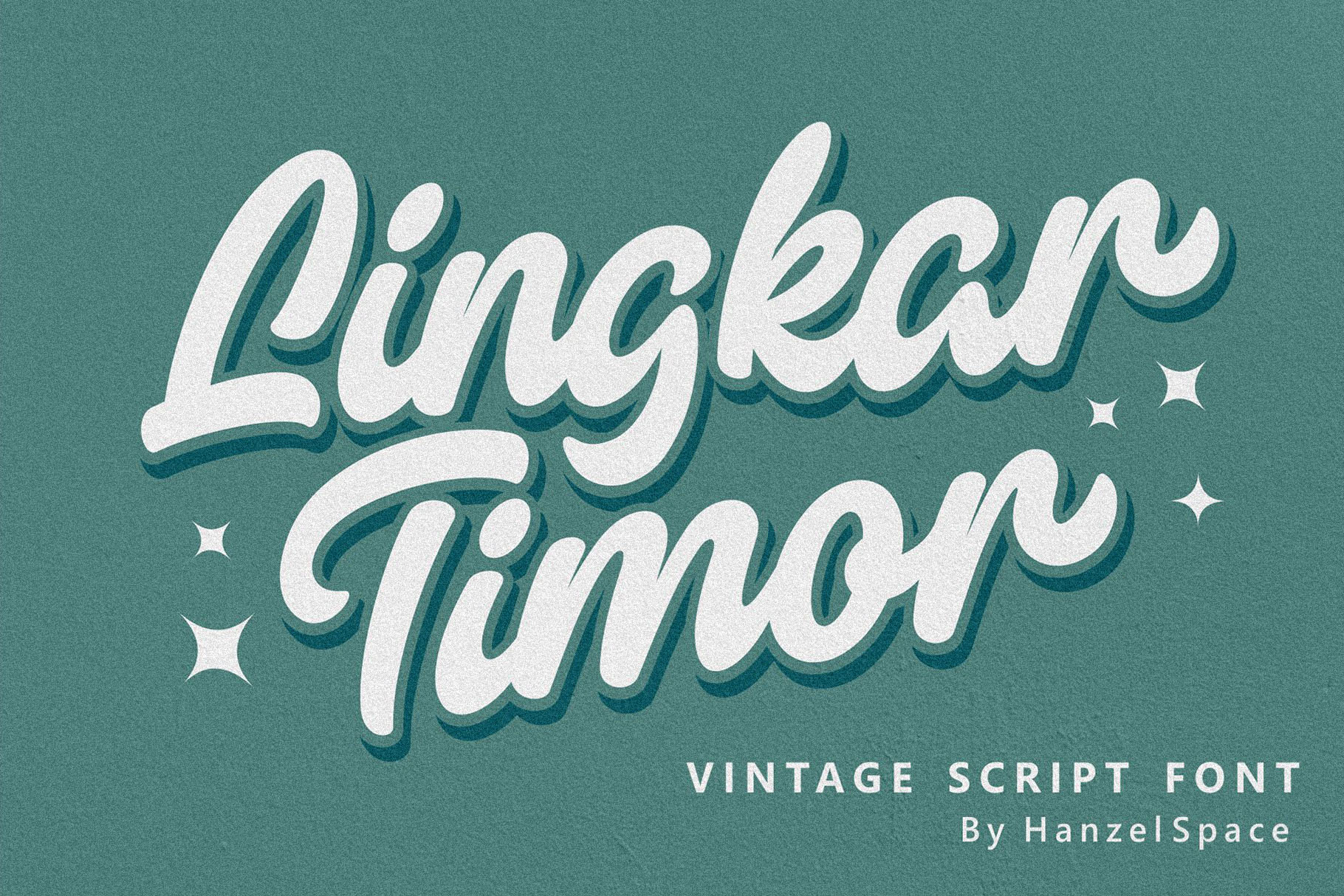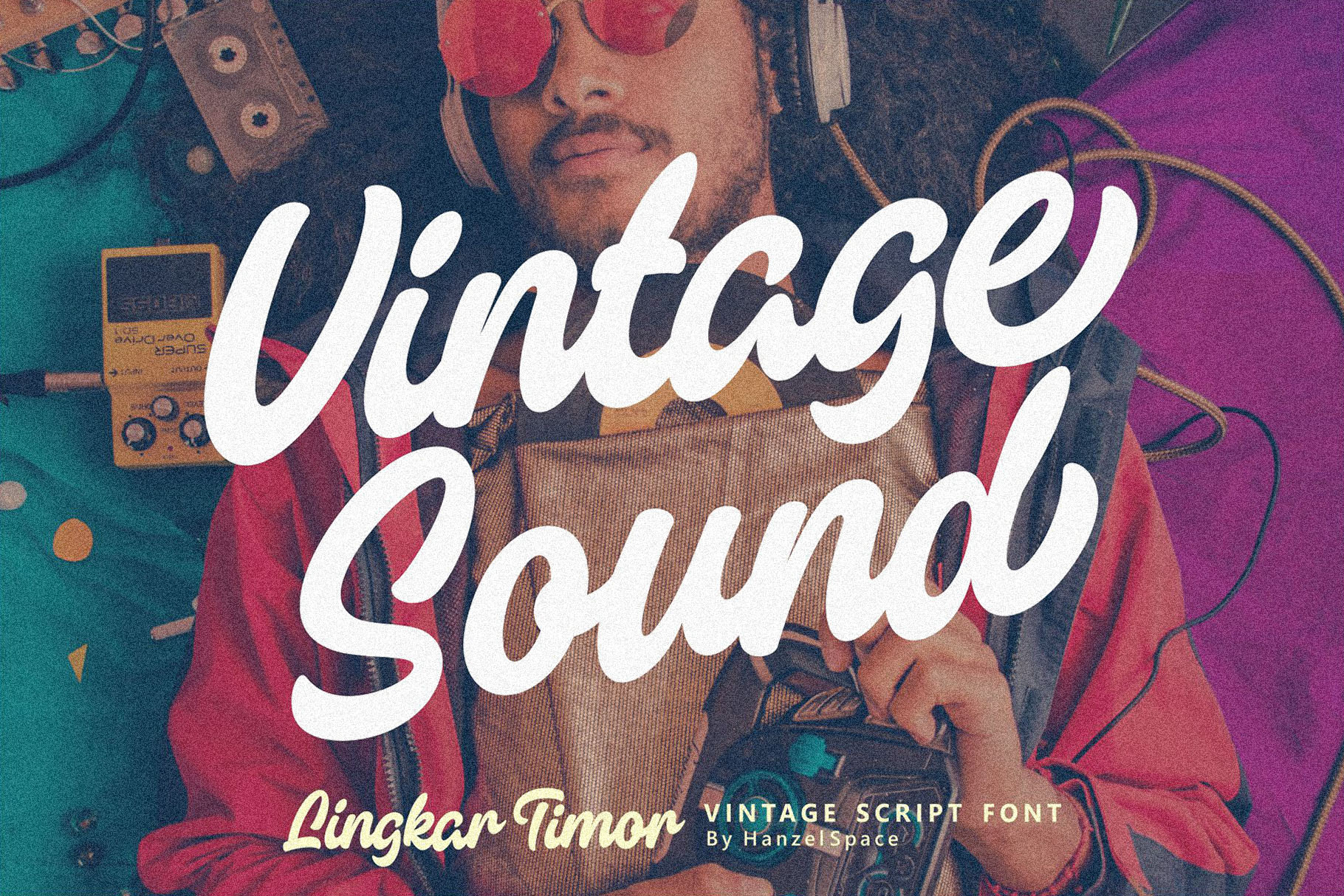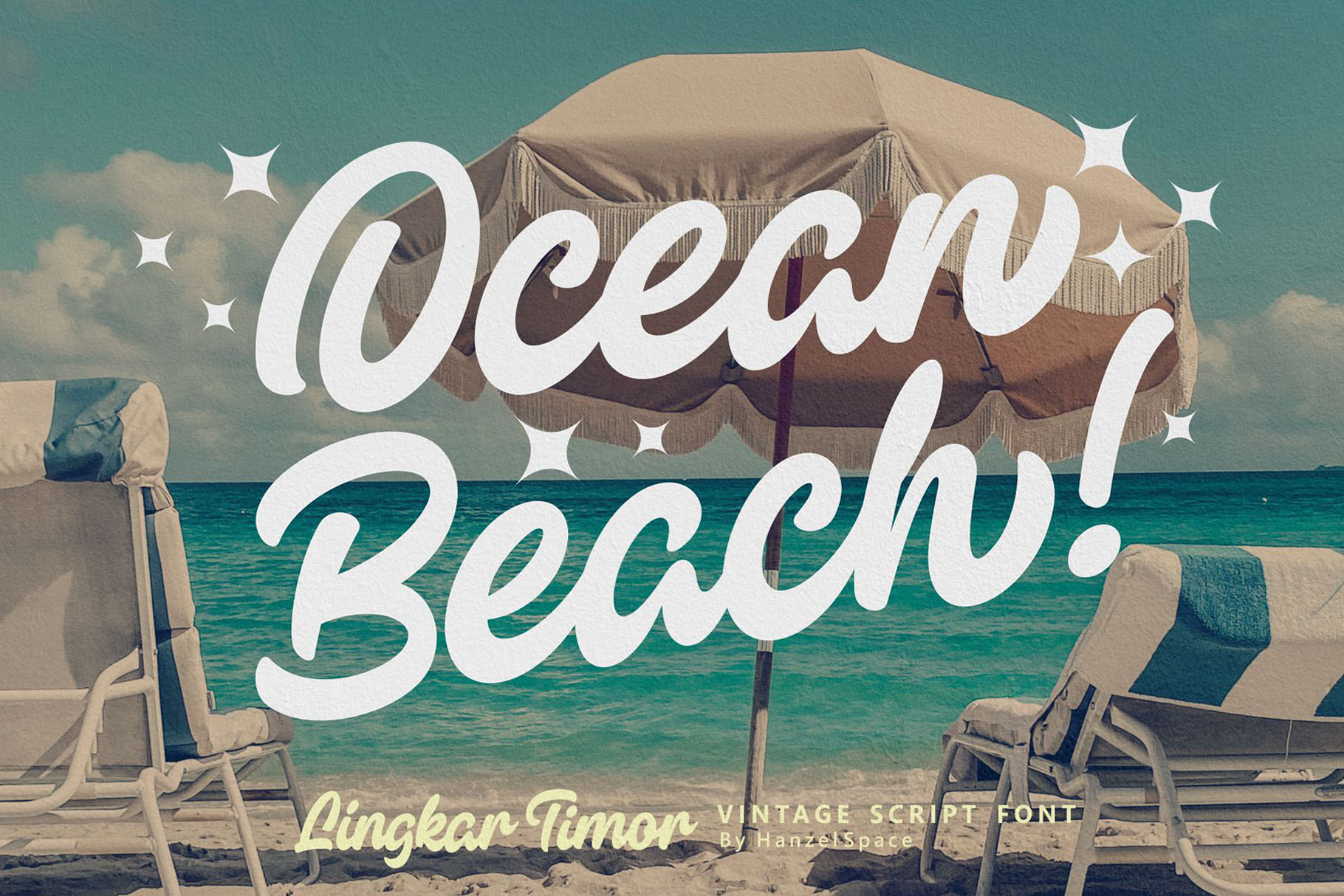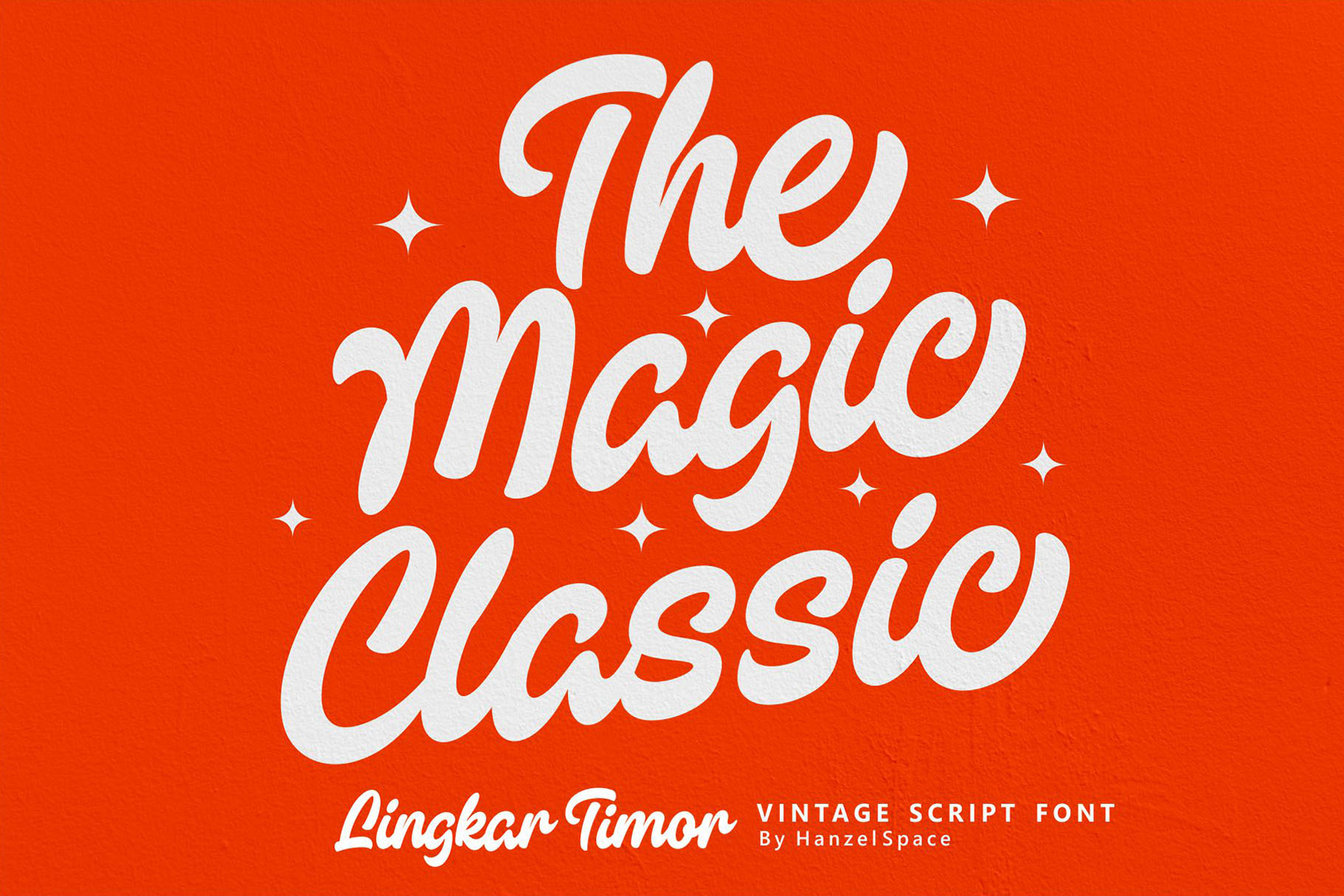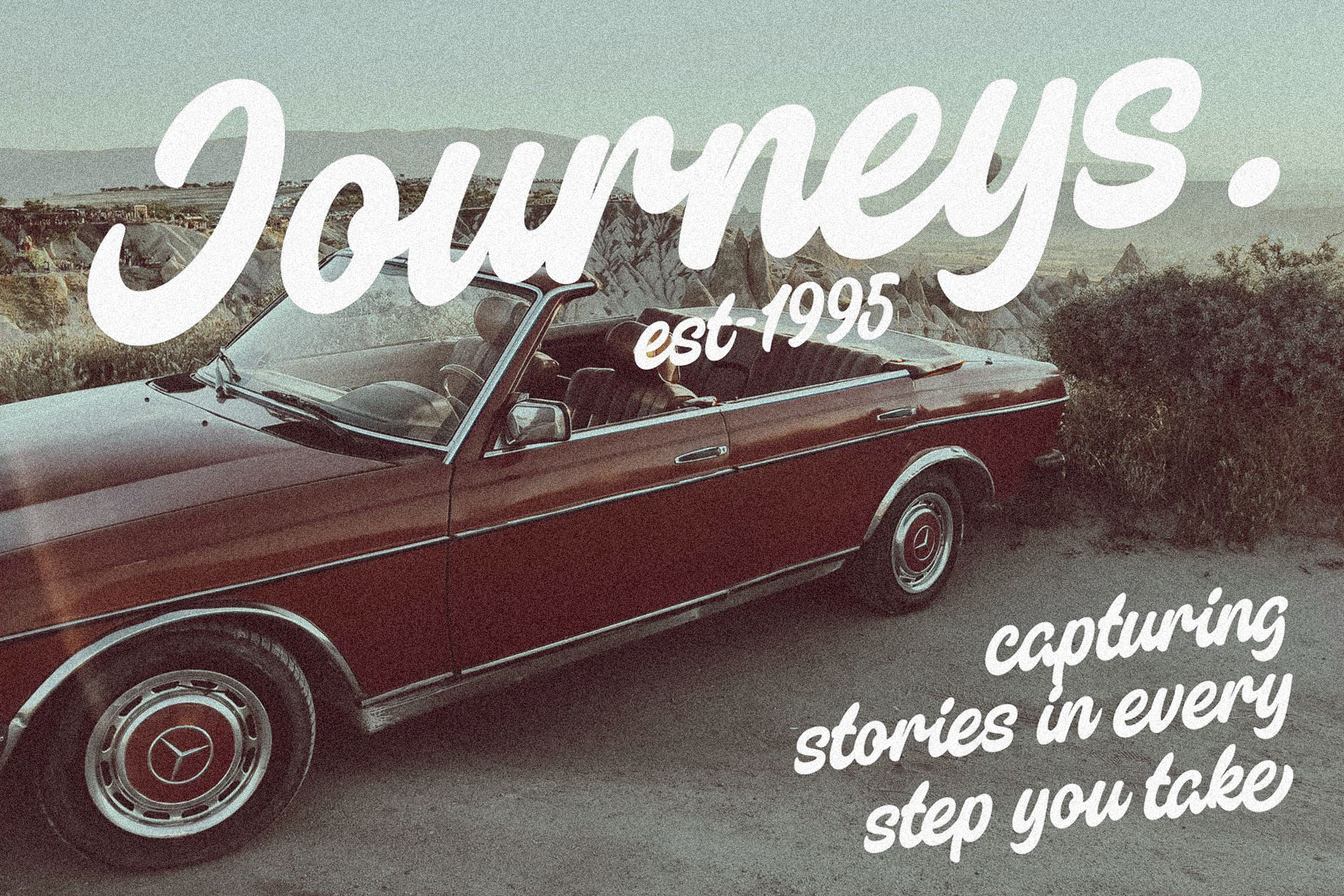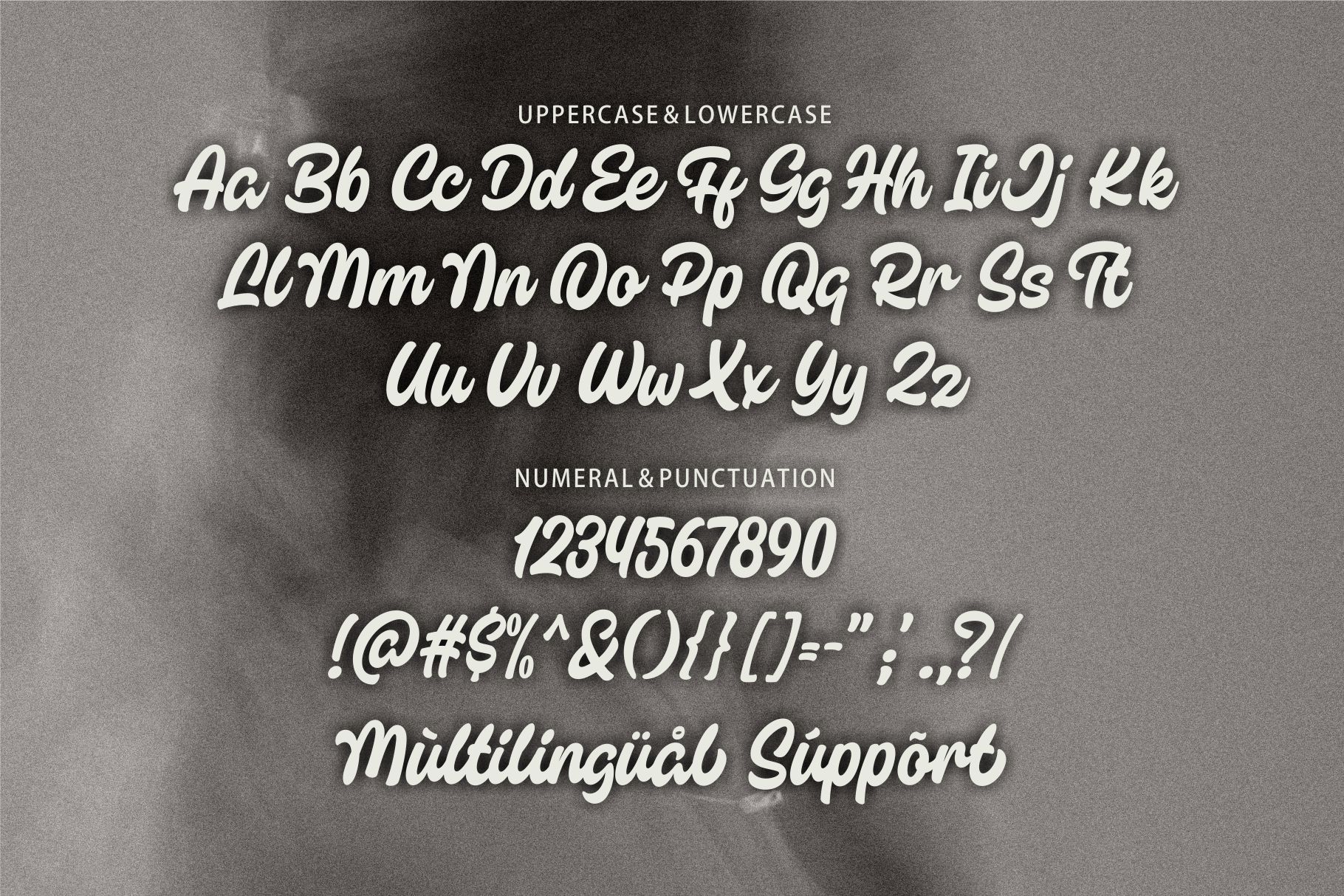
Lingkar Timor – Vintage Script Font
Lingkar Timor – Vintage Script Font A font designed with a vintage touch, with bold, natural lettering that offers modern ease of use. Lingkar Timor is designed for projects that require a touch of nostalgia while remaining stylish and legible. This type of font is perfectly made to be applied especially in logos, and the other various formal forms such as invitations, labels, logos, magazines, books, greeting / wedding cards, packaging, fashion, make up, stationery, novels, labels or any type of advertising purpose.
Features:
• Uppercase & Lowercase
• Numerals & Punctuation
• Ligatures
• Multilanguage Supports
• Swash